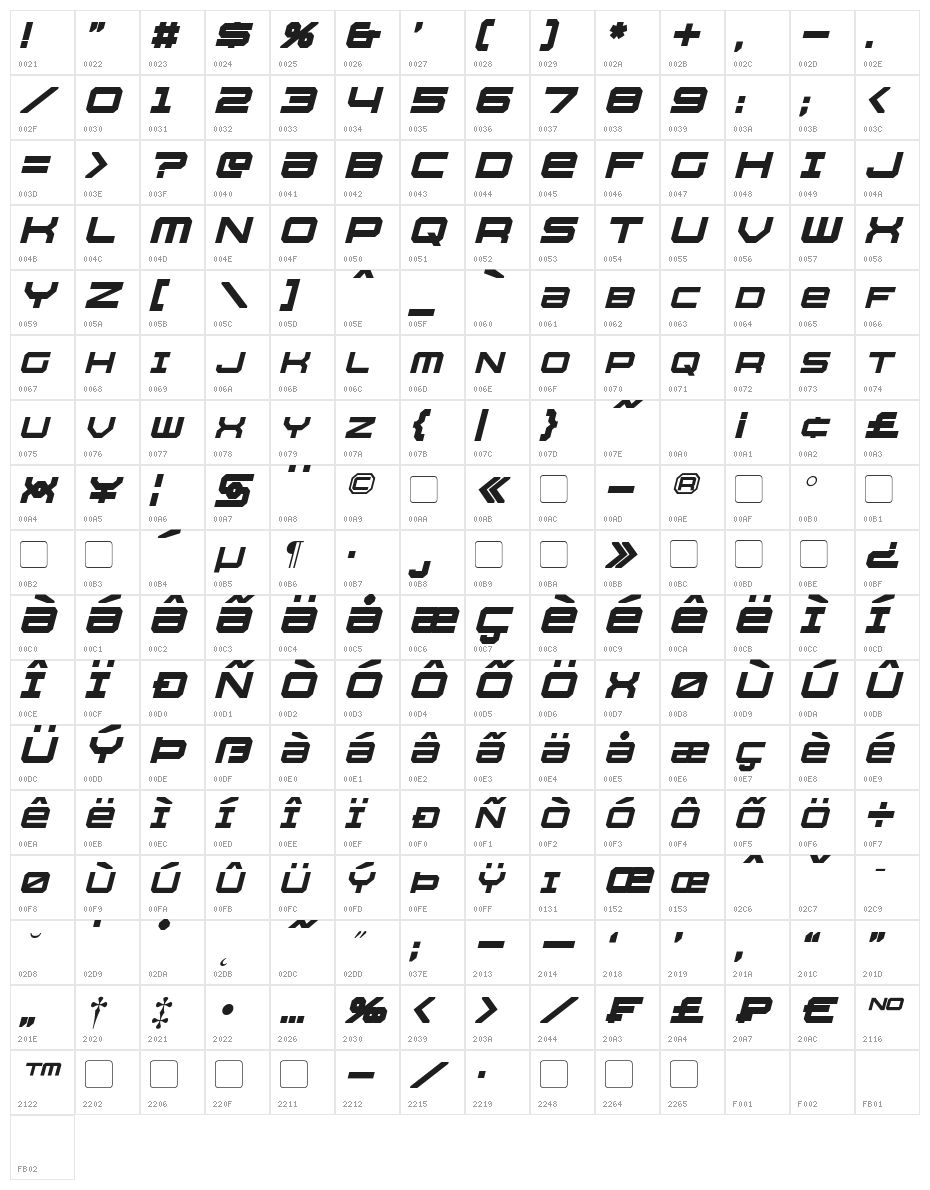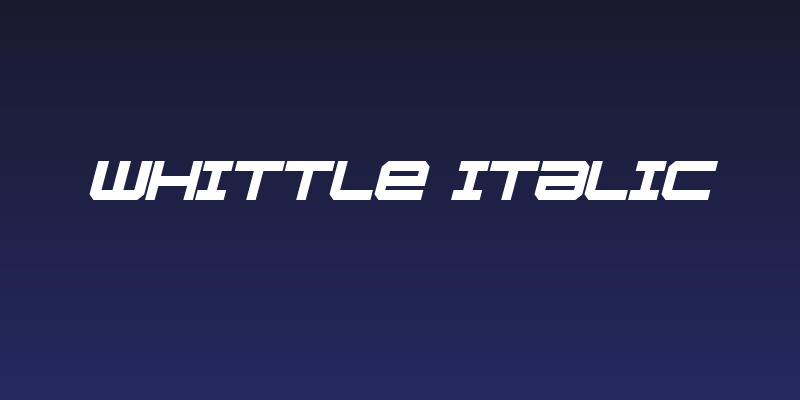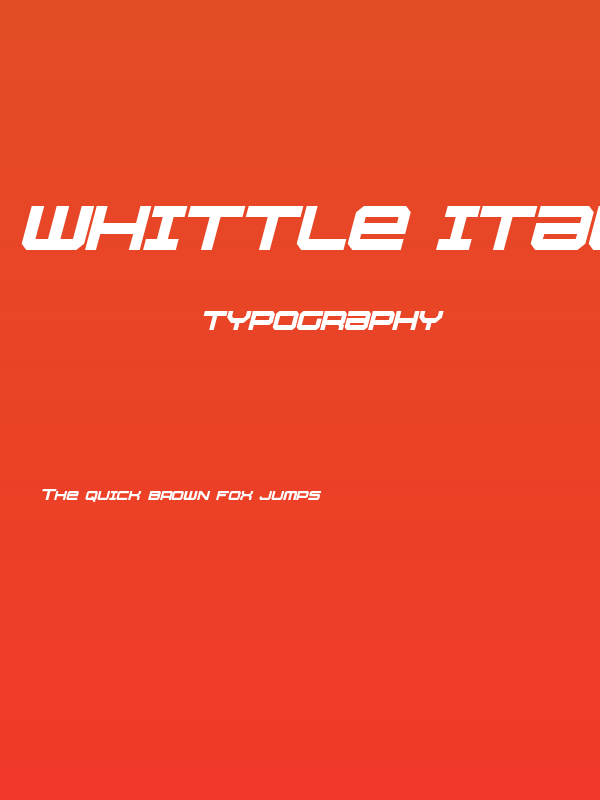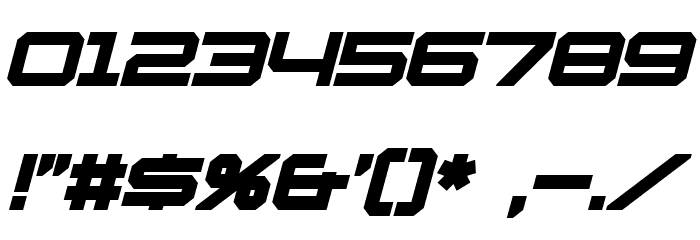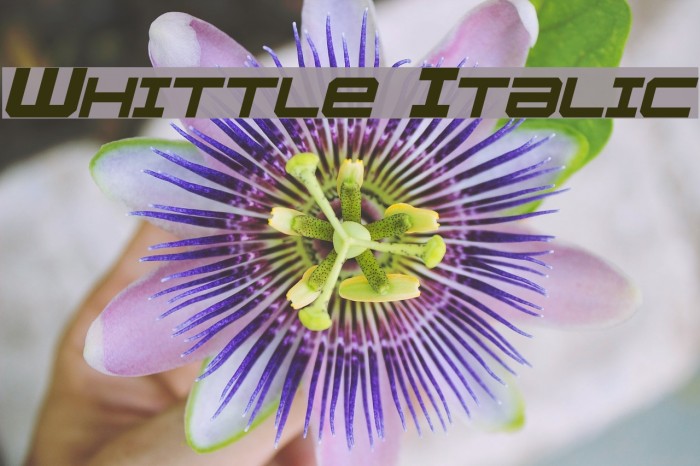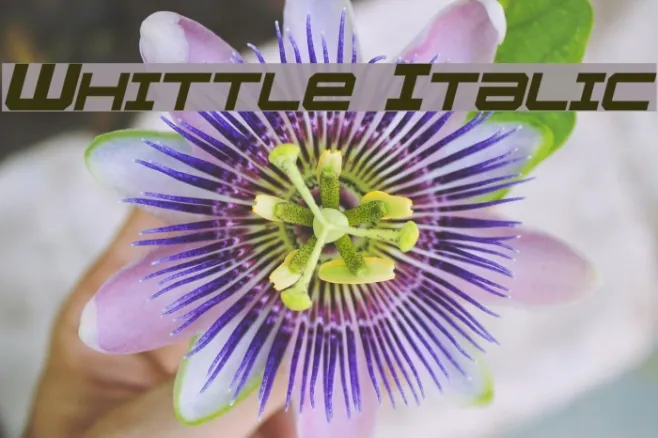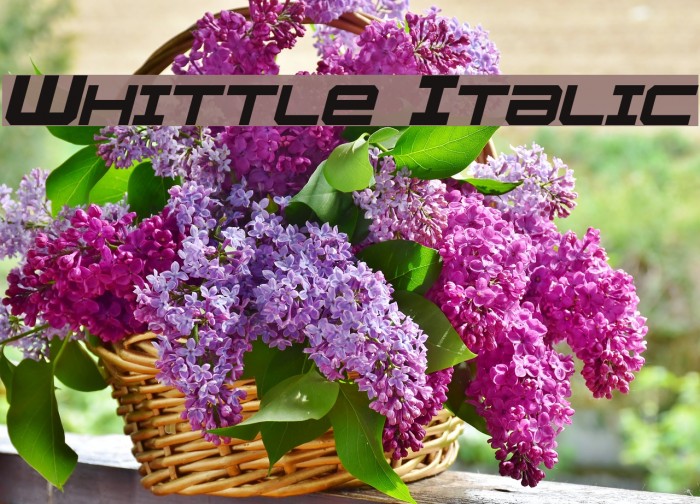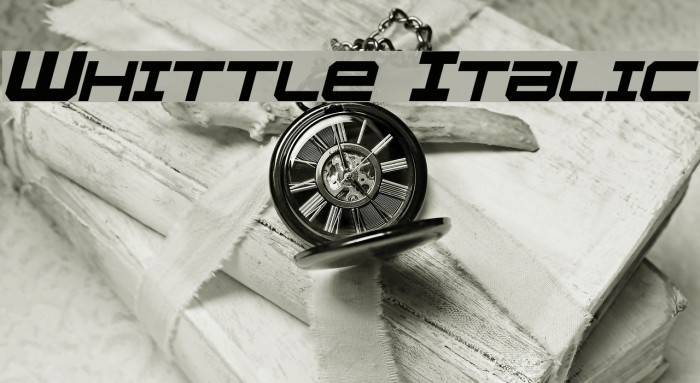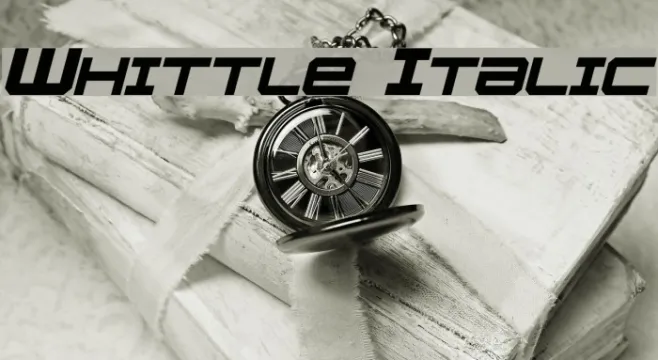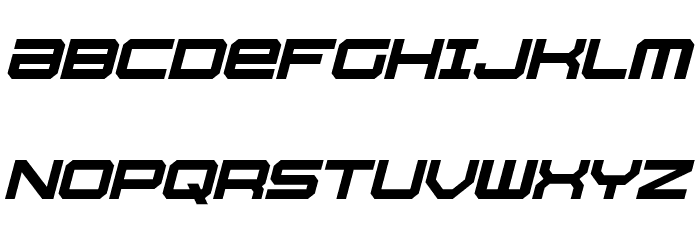
Whittle Italic Font
Whittle Italic Description
This font features a bold, italicized style with a futuristic and angular design. The characters are sharply cut with a distinct slant, giving them a dynamic and forward-moving appearance. The uppercase and lowercase letters maintain a consistent geometric structure, while the numerals and special characters follow the same angular theme. The font's boldness and unique style make it stand out, suitable for projects that require a modern and edgy look.
| Proposed Projects | Ideal for sci-fi themed designs, video game graphics, tech branding, and modern posters. |